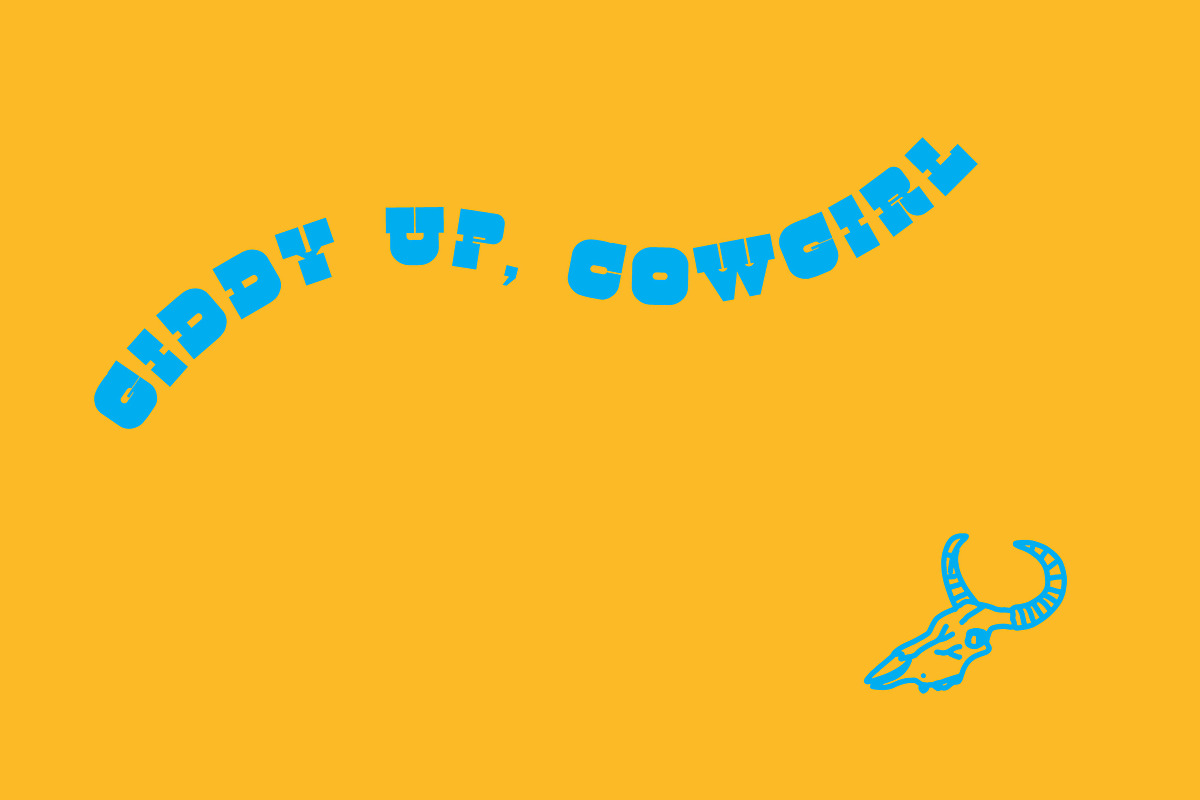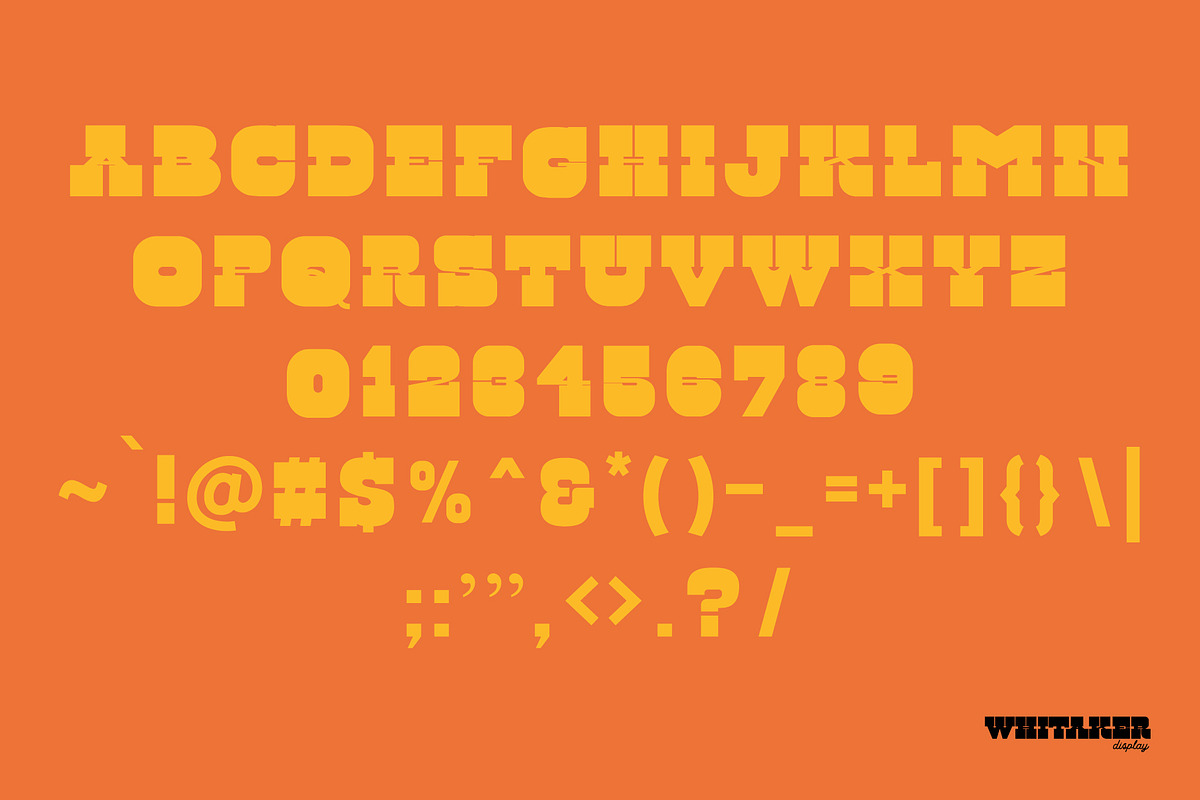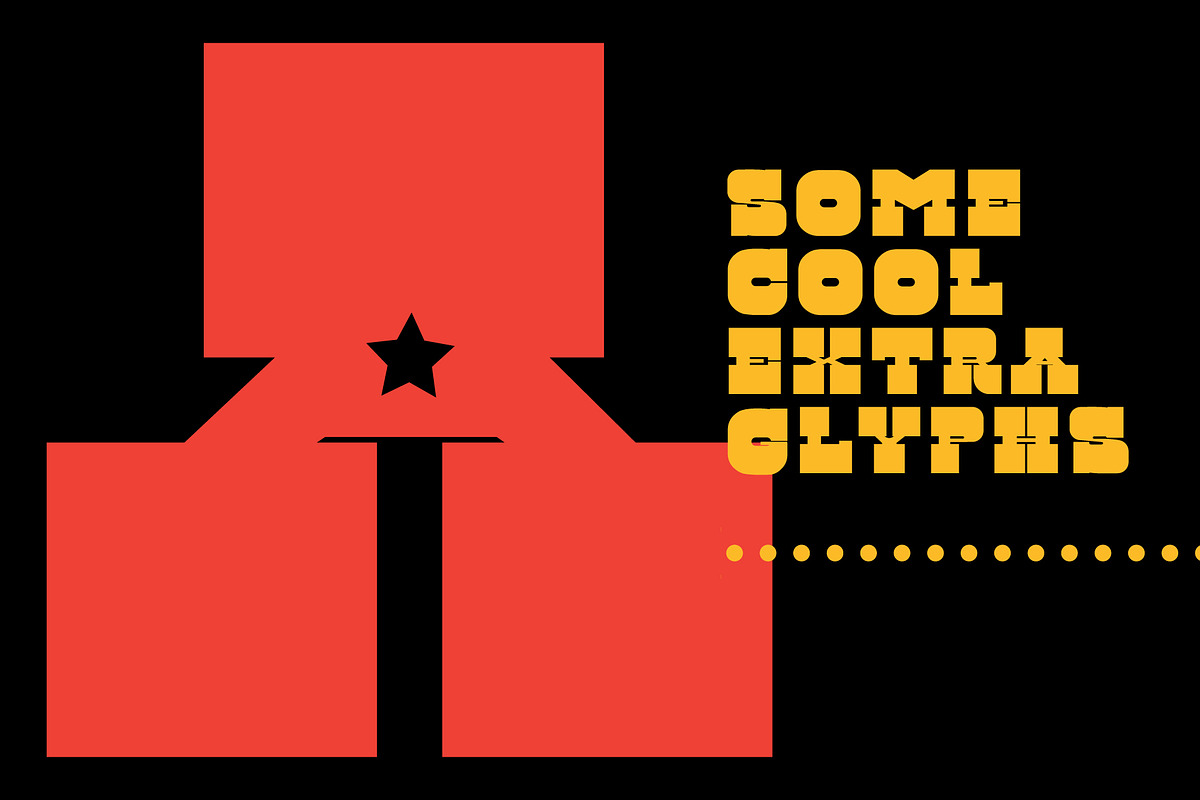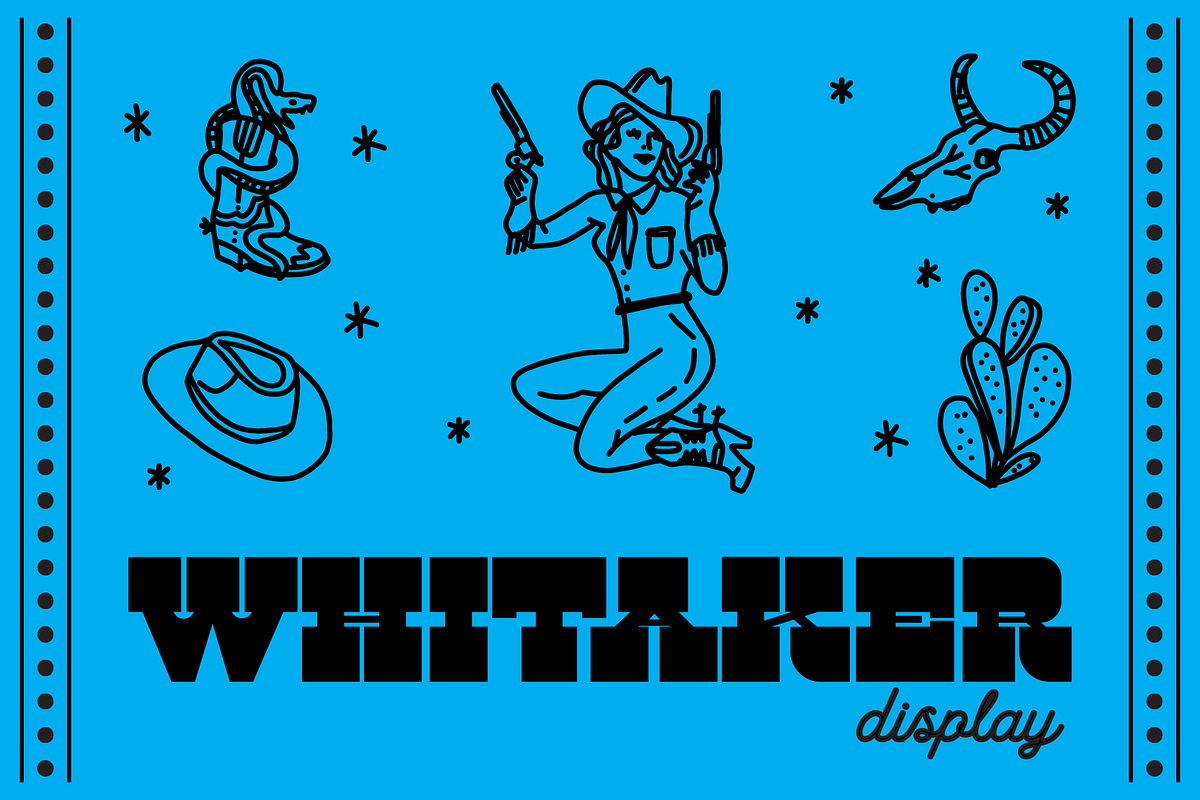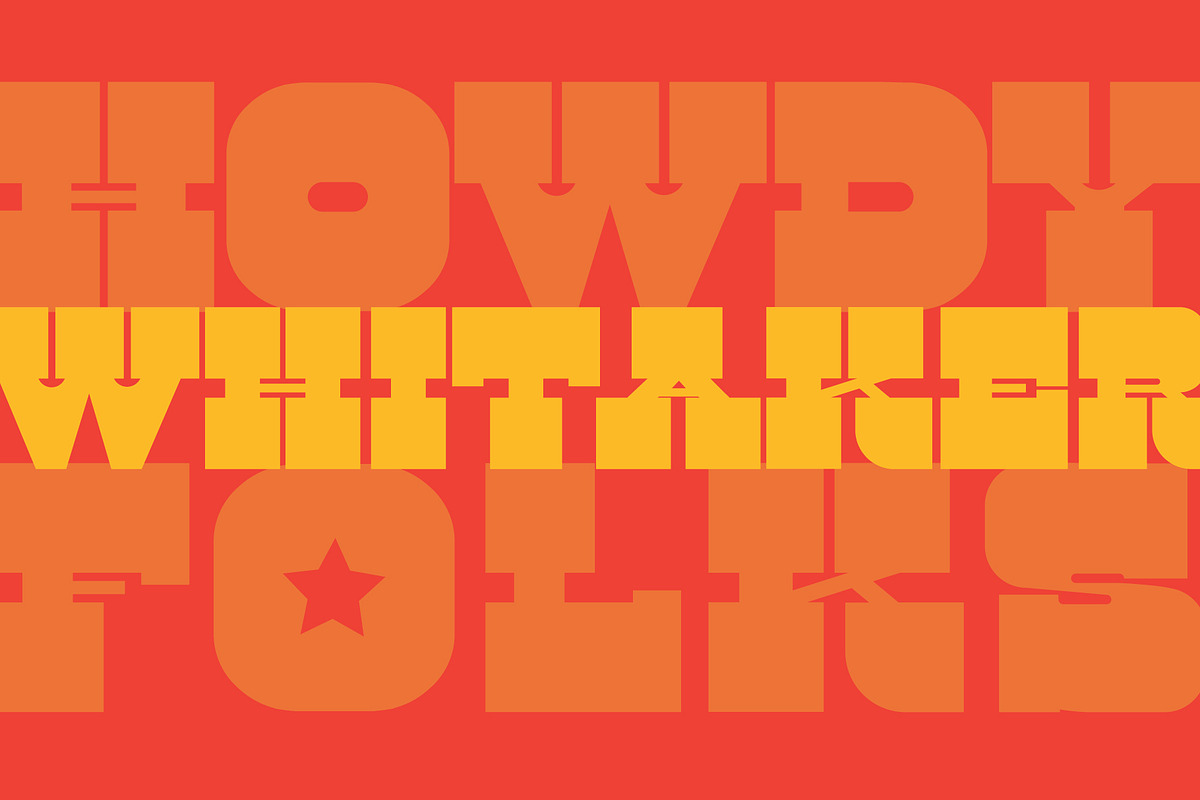
WHITAKER DISPLAY
Giddy Up folks! WHITAKER is a wild western font for your next project - from branding, logos, and promotional materials, to instagram posts, invitations, and print-on-demand graphics. So hop on your horse and ride off into the sunset with this awesome, clean, powerful font!